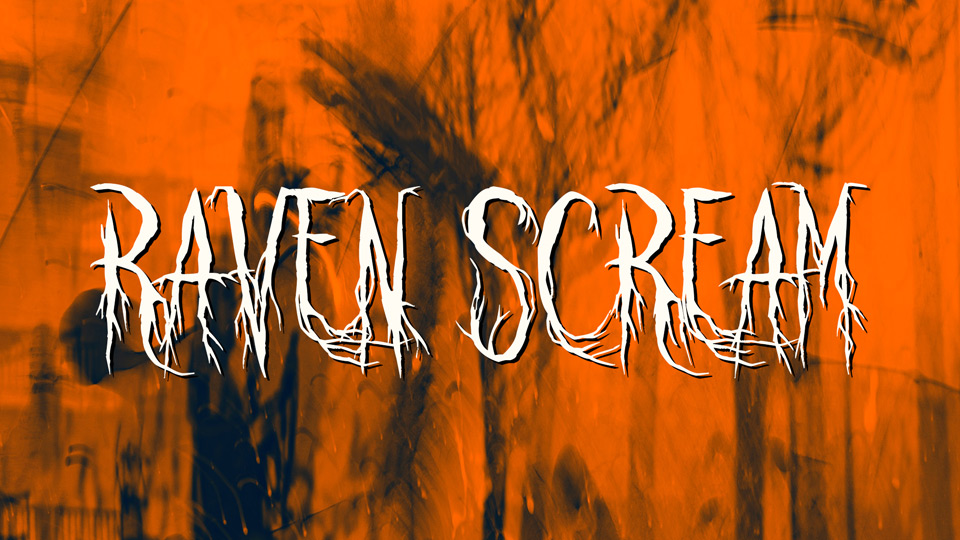
Download Raven Scream font, a typeface that conjures the spectral and the spine-tingling with every stroke. Raven Scream font is ideal for designs that demand an element of ghostly intrigue and suspense.